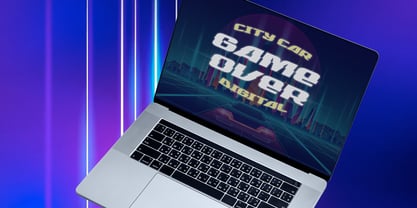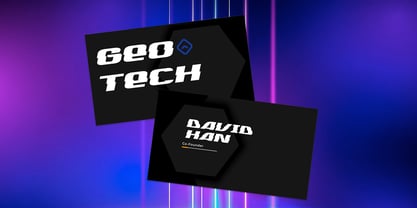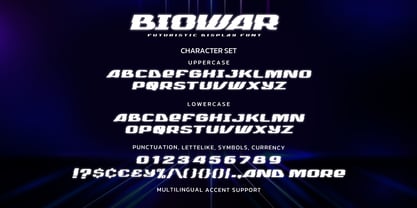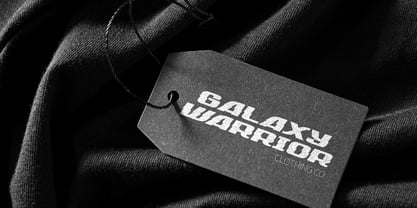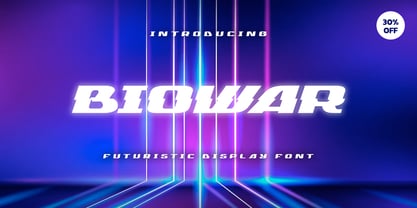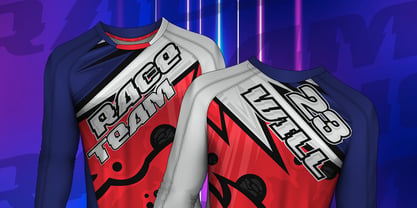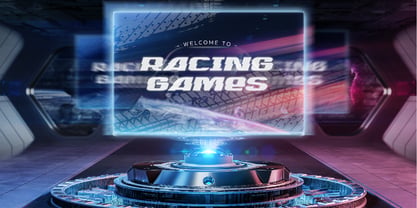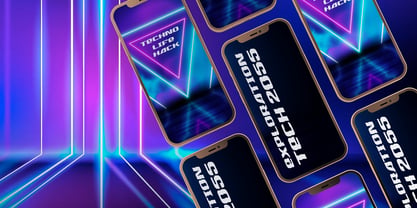
Biowar
by Almarkha Type
The Biowar Font Family was designed by Abdul Malik Wisnu and published by Almarkha Type. Biowar contains 1 styles. More about this family
Biowar is a futuristic display typeface built with bold structures, sharp silhouettes, and high-energy digital aesthetics. Designed with a modern, tech-driven attitude, this font blends neon sci-fi vibes with dynamic motion, creating a strong visual impact in every layout. Each letterform in Biowar features solid shapes, fast angular lines, and a cinematic presence—perfect for designs that demand power, intensity, and a high-tech futuristic atmosphere. Biowar is ideal for creators who want typography that looks modern, electric, and visually commanding.
Designers: Abdul Malik Wisnu
Foundry: Almarkha Type